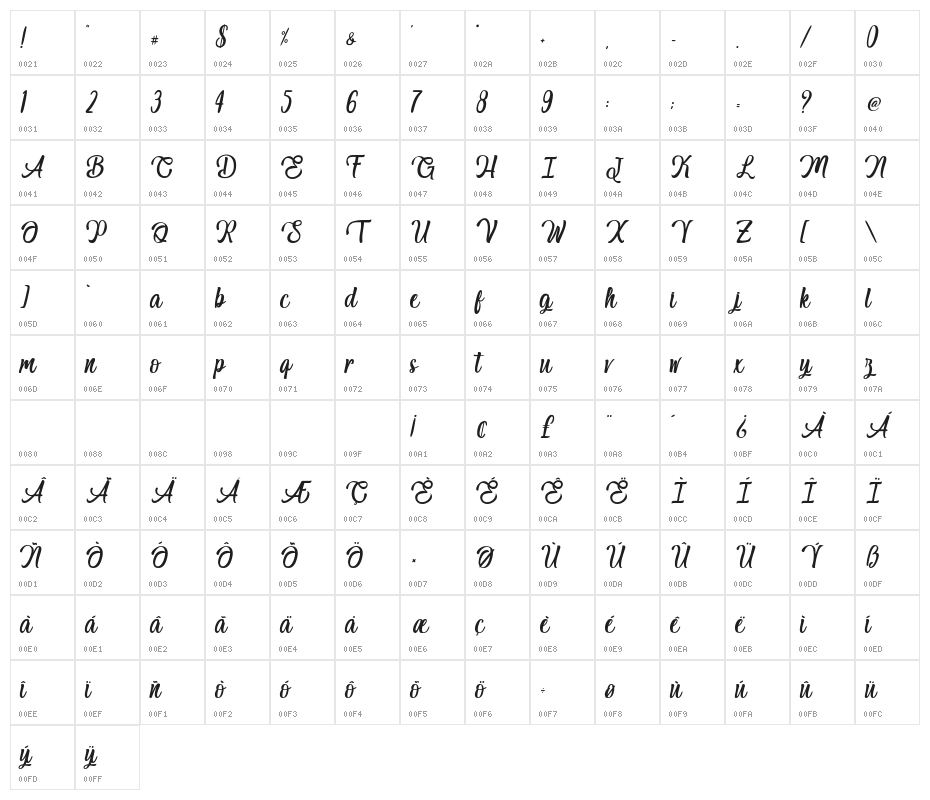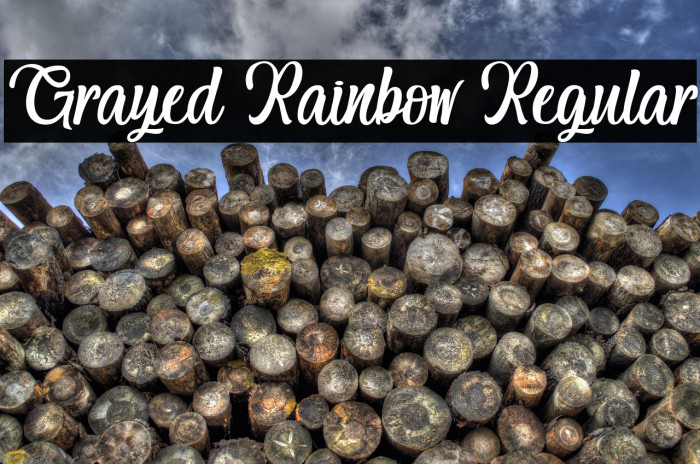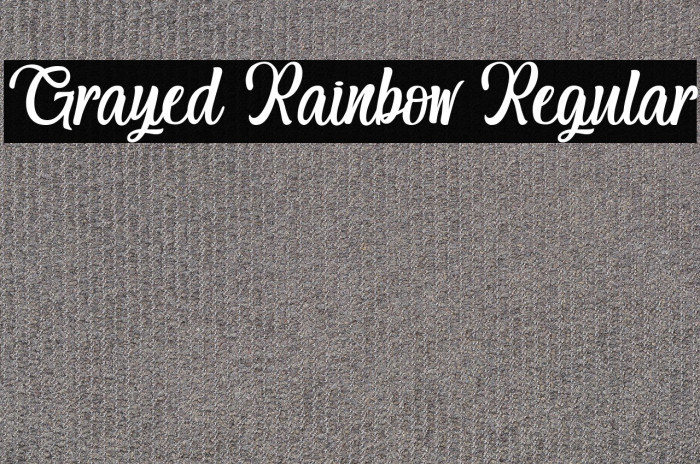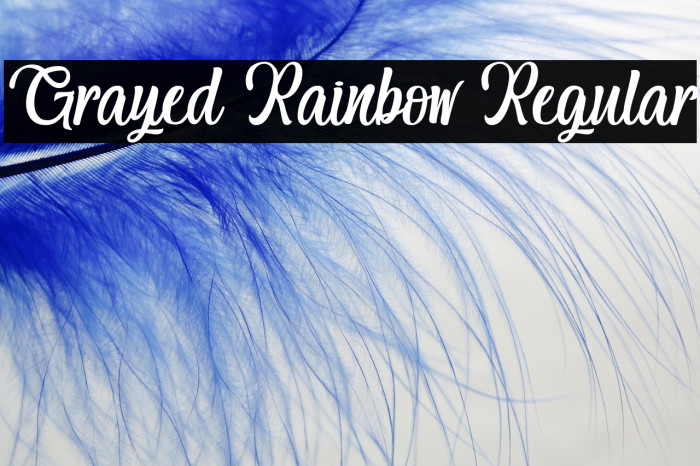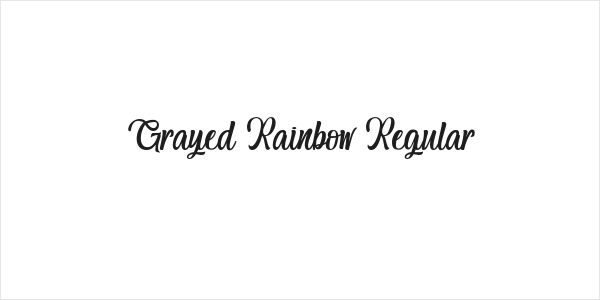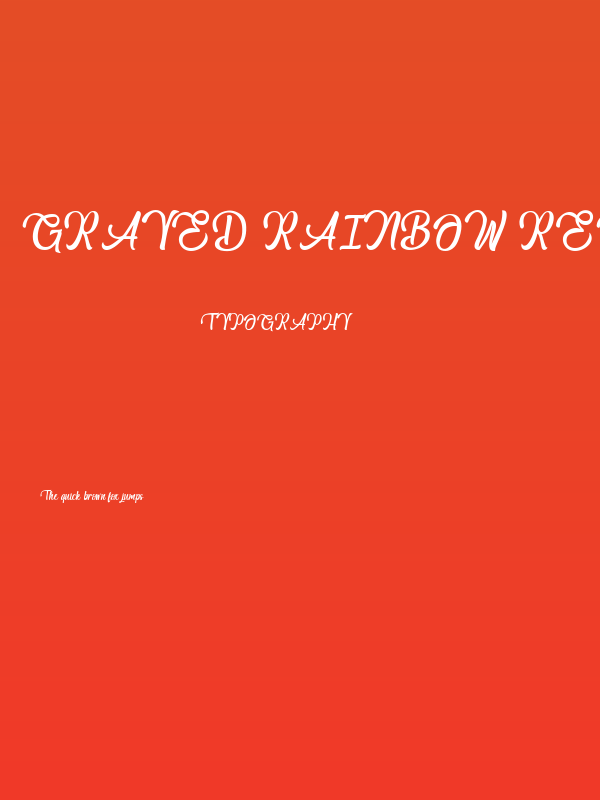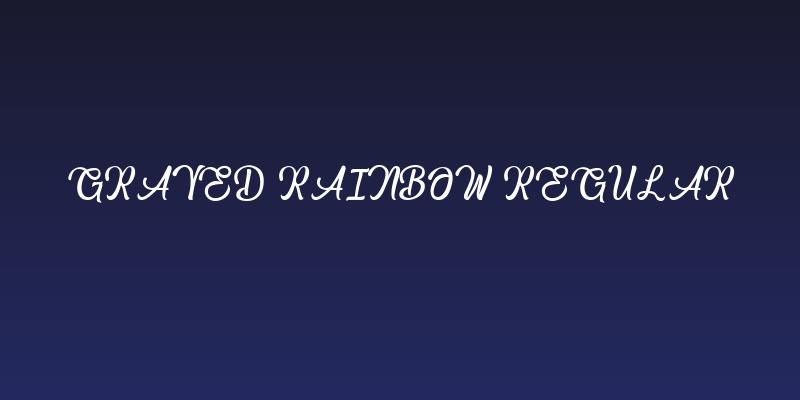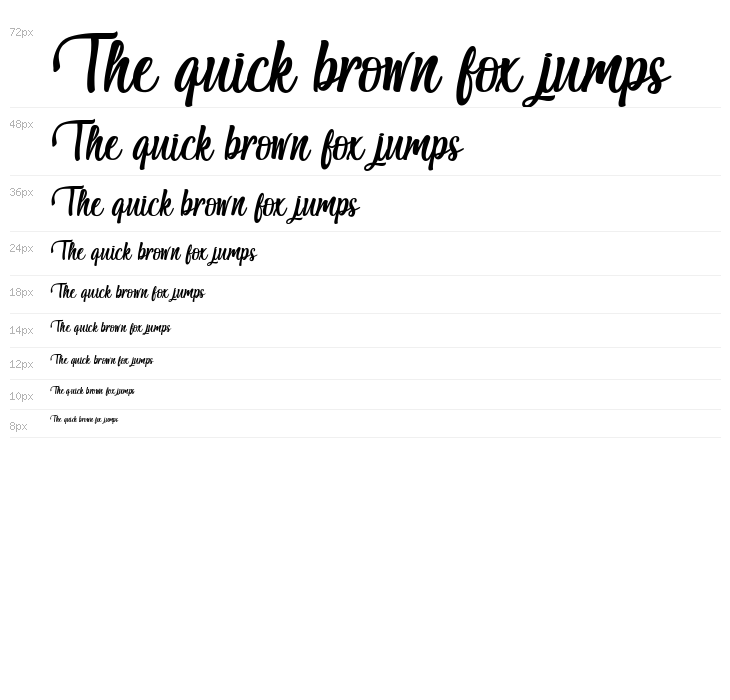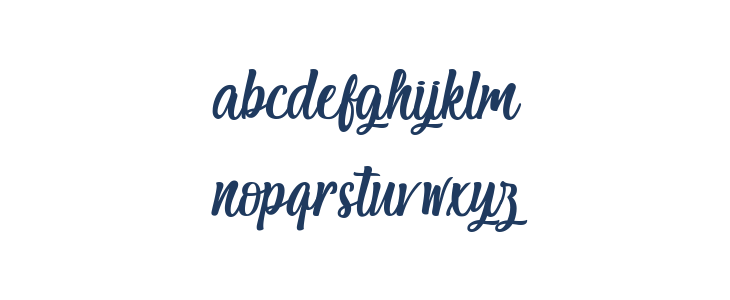
Grayed Rainbow Regular Font
Grayed Rainbow Regular Description
This font features a flowing, cursive style with elegant loops and swashes, giving it a handwritten appearance. The uppercase letters are particularly ornate, with sweeping curves that add a sense of movement and grace. The lowercase letters maintain this fluidity, with some characters connecting seamlessly to the next, enhancing the script-like quality. The numerals are consistent with the overall style, featuring slight embellishments that maintain readability while adding flair. Special characters are designed to match the aesthetic, ensuring a cohesive look across all text elements. This font's design is both sophisticated and approachable, making it suitable for a variety of creative applications.
| Proposed Projects | Ideal for wedding invitations, greeting cards, branding projects, and any design requiring a personal touch. |